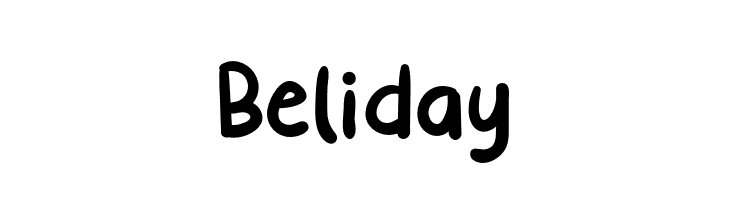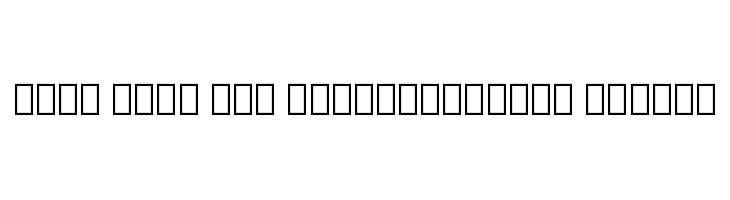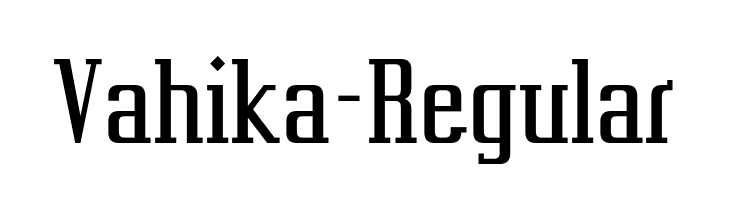
A bold, slab serif font with a modern yet classic style.
A lively, handwritten font with elegant, flowing strokes and a personal touch.
A playful, hand-drawn font with a whimsical and informal style.
A bold, angular font with a modern and dynamic style.
A bold, handwritten script font with a lively and dynamic style.
A futuristic, italicized font with gradient stripes, conveying motion and speed.
No valid font glyphs are visible; only placeholder boxes are shown.
A tech-inspired font with characters inside smartphone-like shapes.
A bold, handwritten font with a playful and informal style.
A dynamic and flowing script font with elegant cursive letterforms.